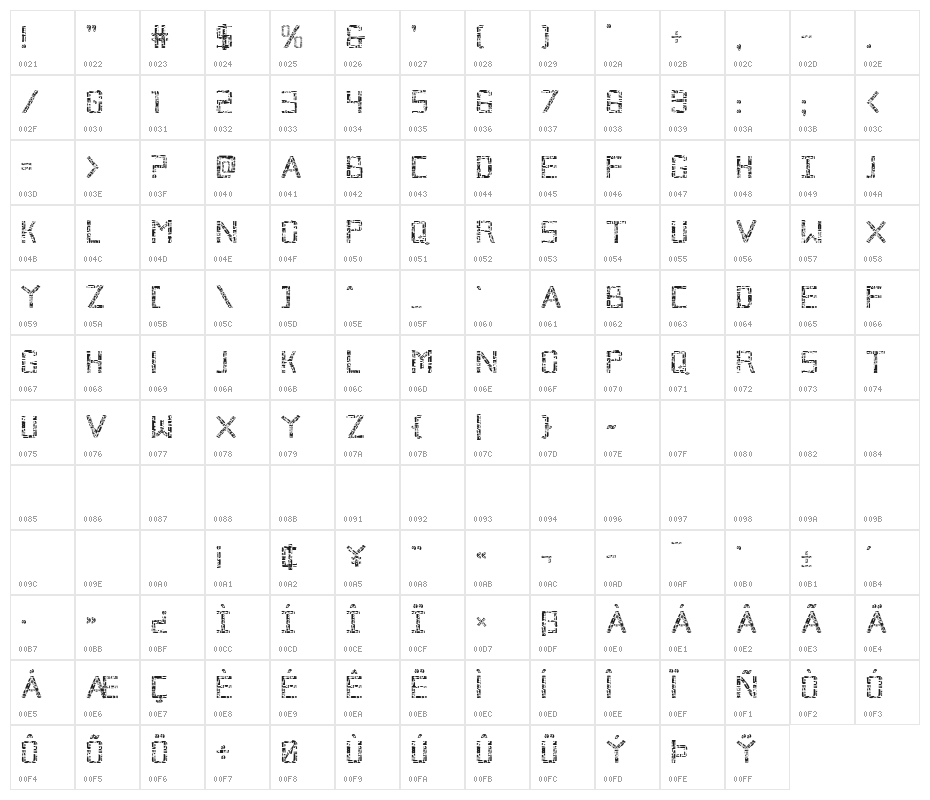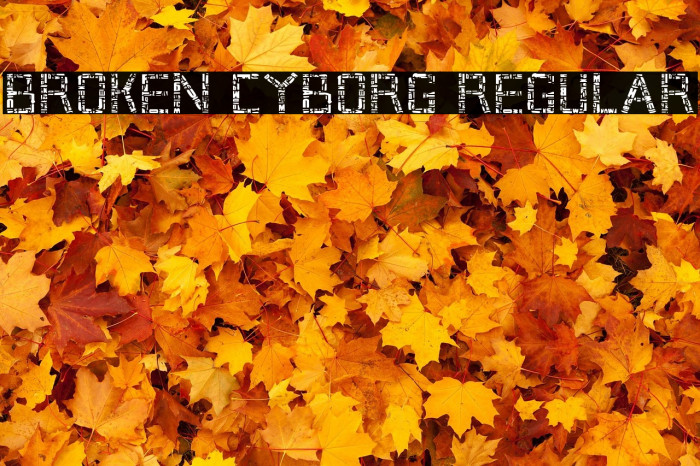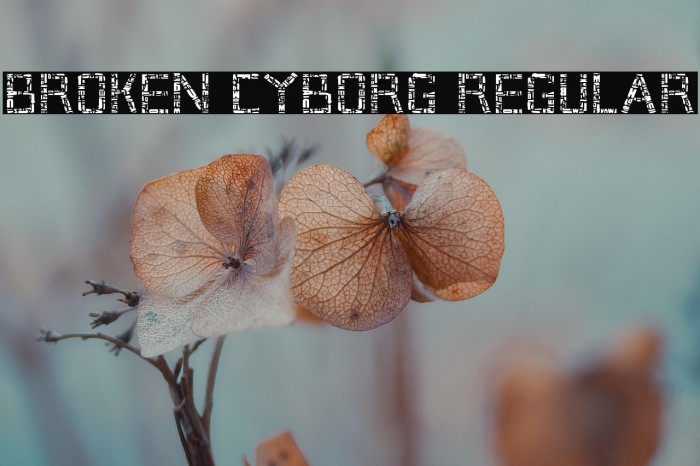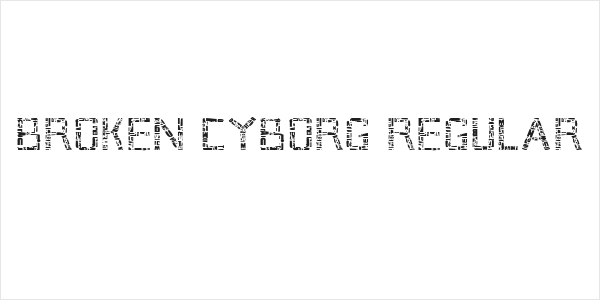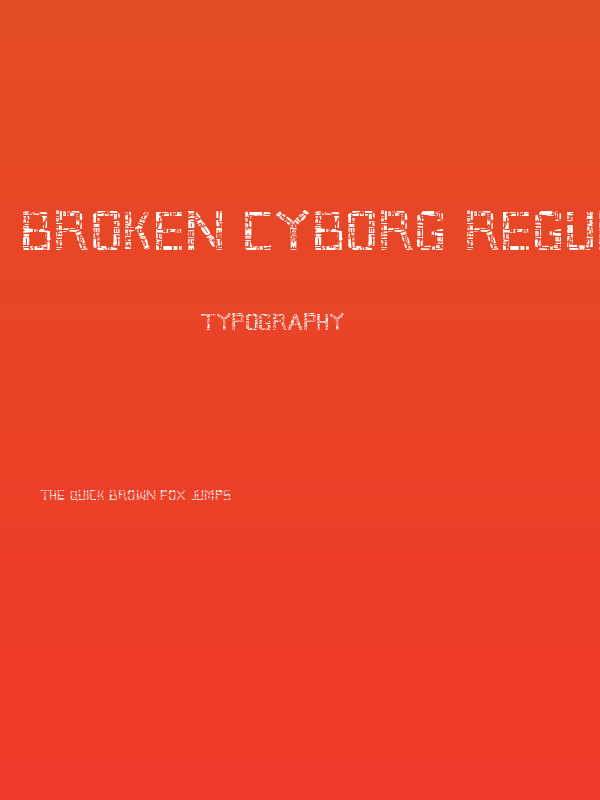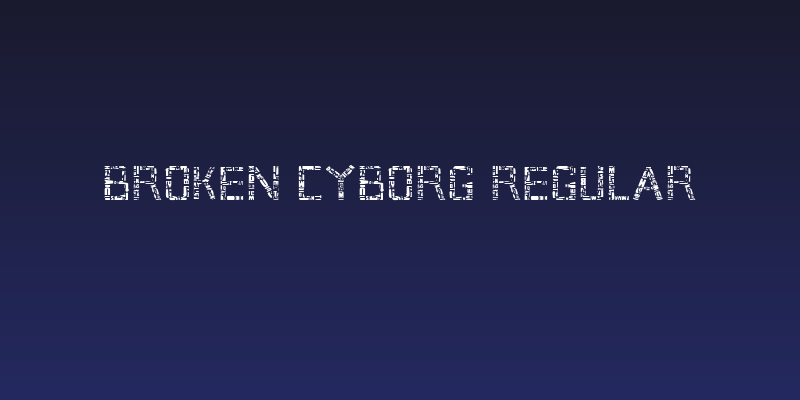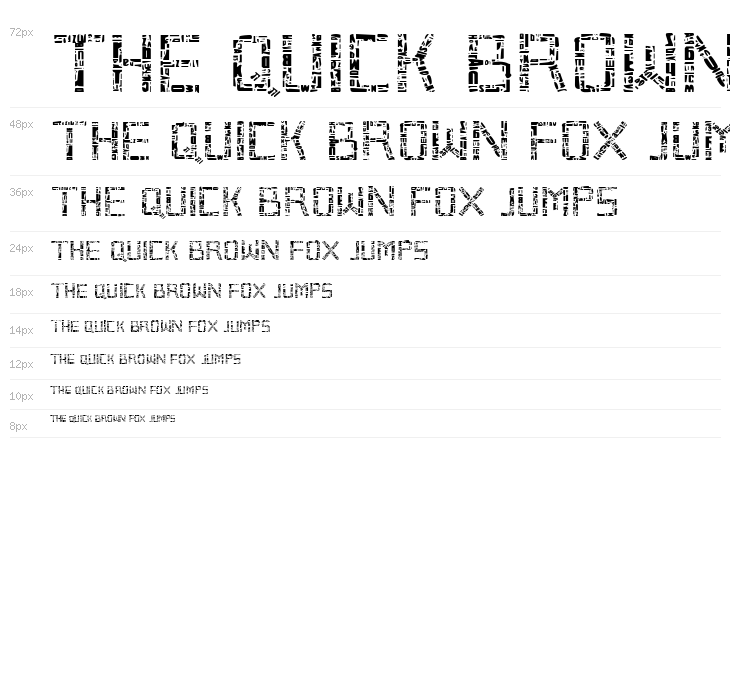
Broken Cyborg Regular Font
Broken Cyborg Regular Description
This font features a futuristic and fragmented design, reminiscent of digital or cybernetic themes. Each character is composed of broken segments, creating a unique and edgy appearance. The style is bold and eye-catching, with a high level of detail that suggests a mechanical or technological influence. The font maintains a consistent structure across all characters, ensuring readability despite its intricate design. It is particularly suited for projects that aim to convey a sense of innovation, technology, or science fiction.